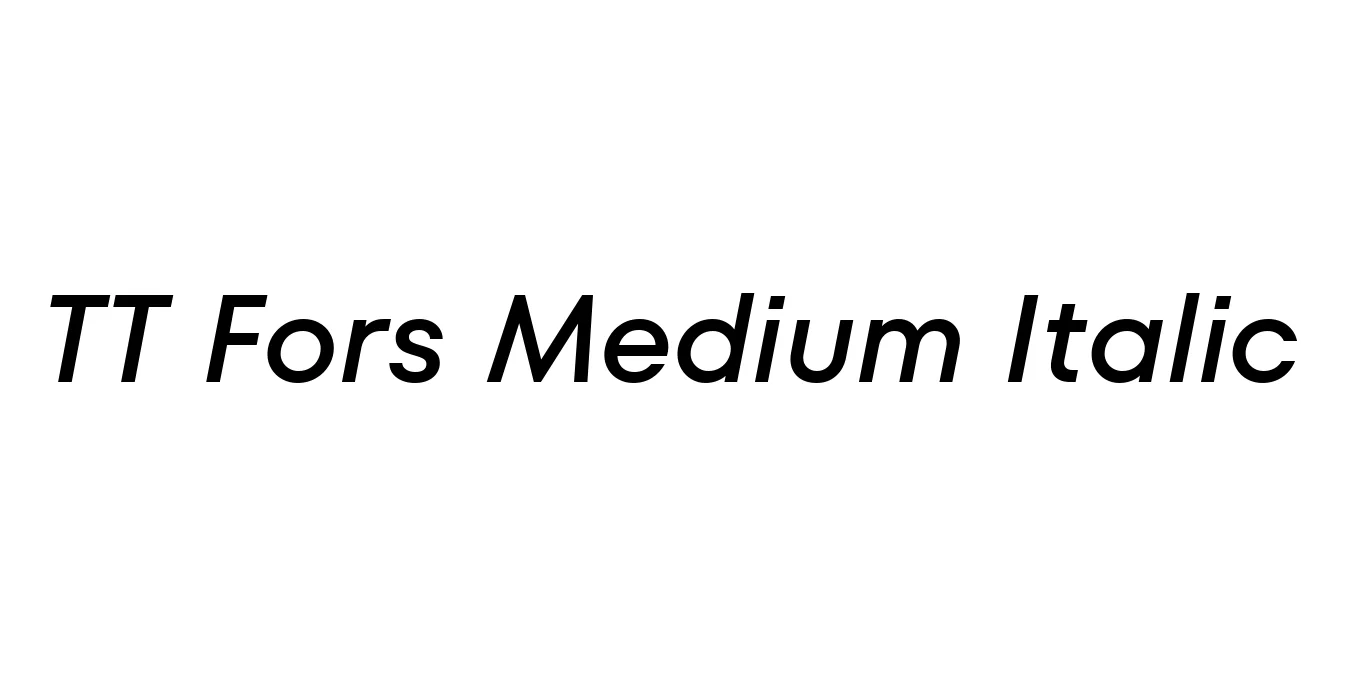
TT Fors Medium Italic
Designed by TypeType Team
| Category | Geometric Sans Serif |
| Designer | TypeType Team |
TT Fors was developed by the TypeType foundry as a comprehensive geometric sans-serif system intended for modern interface design and branding. Drawing inspiration from early 20th-century geometric types, the design team focused on creating a versatile workhorse that balances mathematical precision with humanistic touches. The Medium Italic variant was specifically engineered to provide a distinct rhythmic shift from the upright styles, ensuring it functions seamlessly in complex typographic hierarchies while maintaining a contemporary aesthetic.
Technically, TT Fors Medium Italic features a generous x-height and open apertures that maintain exceptional legibility even at smaller point sizes. The 'Medium' weight offers a robust visual presence that bridges the gap between body text and display utility, while the italic slant is carefully calibrated to prevent stroke distortion. Its letterforms exhibit a modern character with slightly condensed proportions in certain glyphs, allowing for efficient space utilization in digital UI and sophisticated editorial layouts.
TT Fors Medium Italic Best Uses
Optimized for readability in digital applications and mobile dashboards.
Provides a clean, authoritative voice for professional branding and company collateral.
Perfect for emphasizing quotes or dynamic sidebars in both print and digital media.